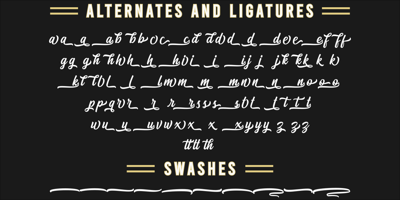
Longhai Free Download
If you're looking for a bold yet artistic typeface with a unique character, the Longhai Font Free Download is a perfect choice. With its hand-drawn aesthetic, expressive strokes, and slightly vintage vibe, Longhai Font is ideal for branding, poster designs, apparel graphics, social media content, and creative advertising. It brings a handcrafted authenticity that sets your work apart from the ordinary.
Longhai Font is designed to balance boldness and readability. Its textured look and free-flowing style give your projects a lively, dynamic feel, while its legibility ensures that your message remains clear. Whether you’re creating eye-catching titles, artistic logos, or stylish merchandise, Longhai Font adds a distinctive charm and energy.